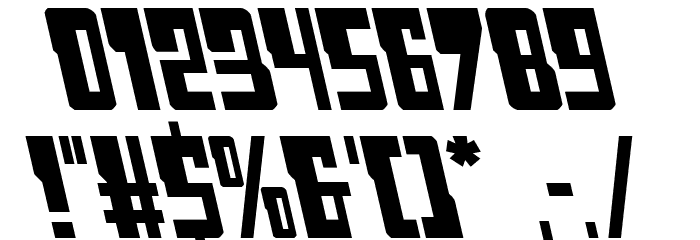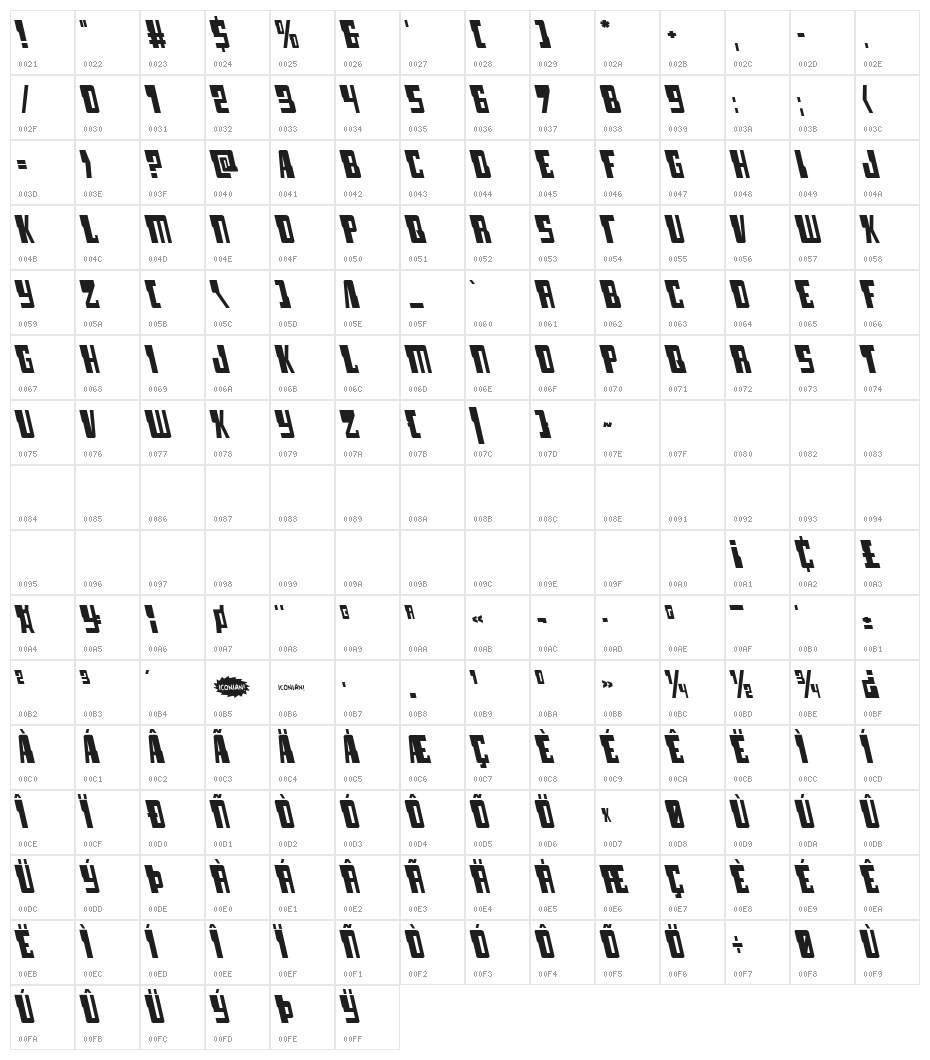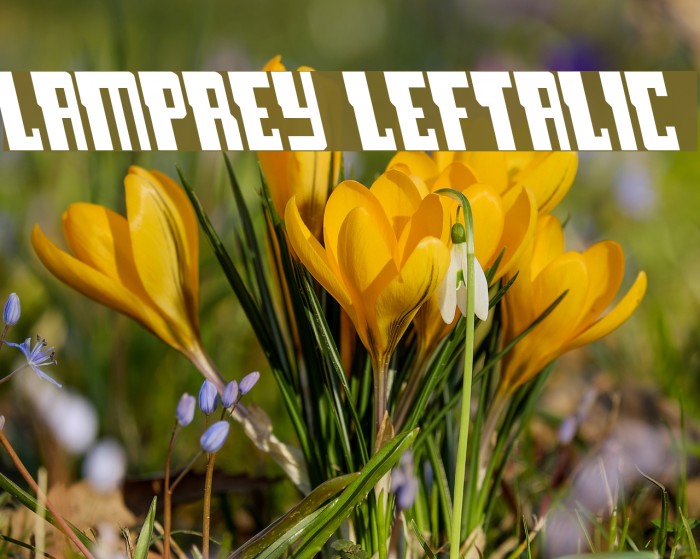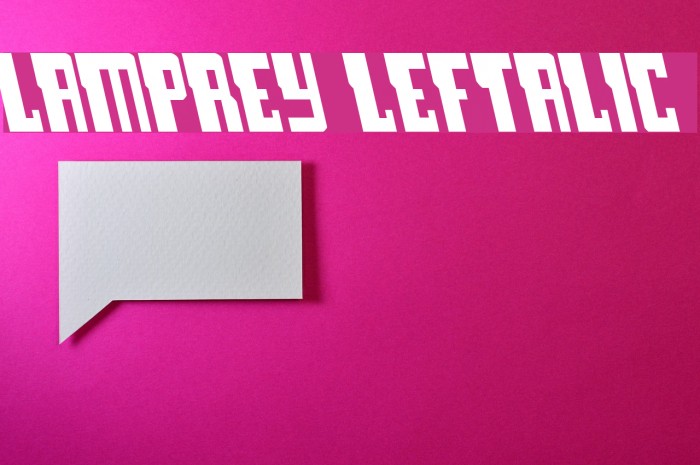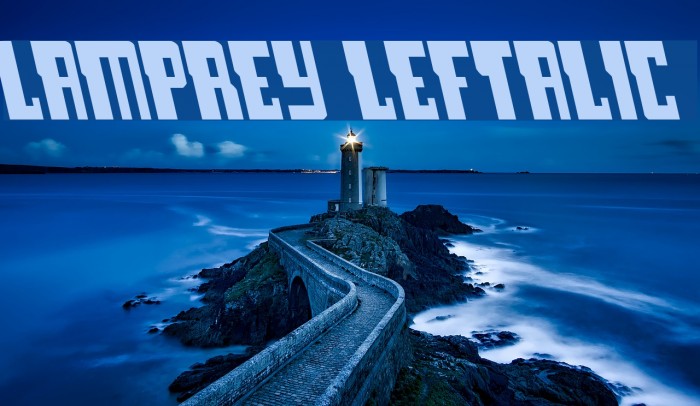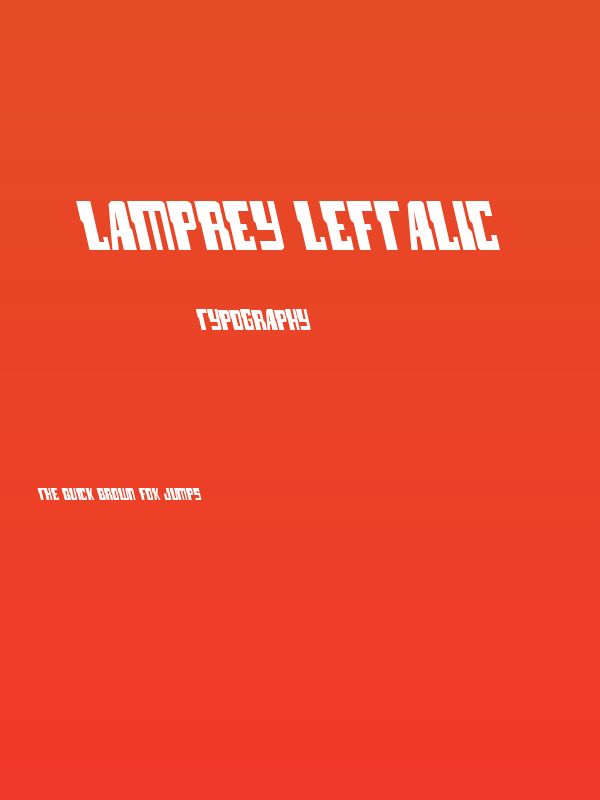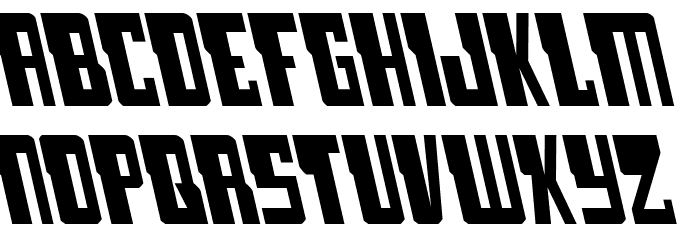
Lamprey Leftalic Font
Lamprey Leftalic Description
This font exhibits a bold and dynamic style with a distinct slant to the left, giving it a unique and energetic appearance. The characters are blocky and geometric, with sharp angles and a consistent thickness throughout. The uppercase and lowercase letters maintain a uniform height, contributing to a cohesive look. The numbers and special characters follow the same angular and bold design, ensuring consistency across all glyphs. This font's strong presence makes it ideal for attention-grabbing designs.
| Proposed Projects | Ideal for posters, logos, and headlines that require a bold and dynamic appearance. |